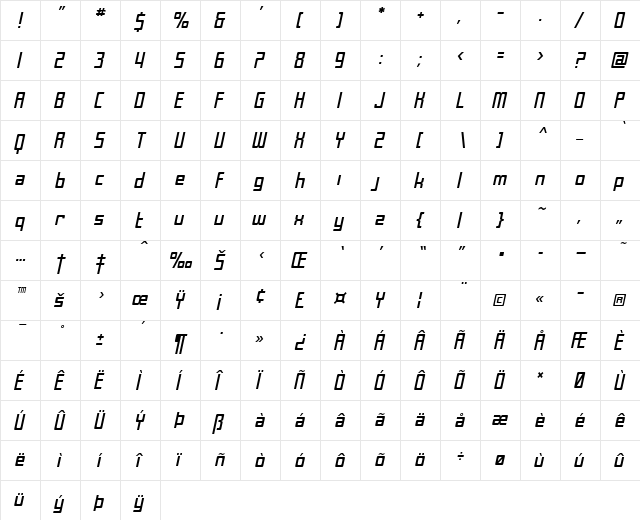
SF Laundromatic Oblique
Design Context for SF Laundromatic Typeface
SF Laundromatic takes a measured approach to typography — its balanced proportions and neutral character make it a reliable workhorse for both digital and print work. Its italic angle brings a sense of urgency and motion to the letterforms.
Pro Tip: Use SF Laundromatic for emphasis, pull quotes, and subheadings where its slanted energy can add rhythm to the layout.